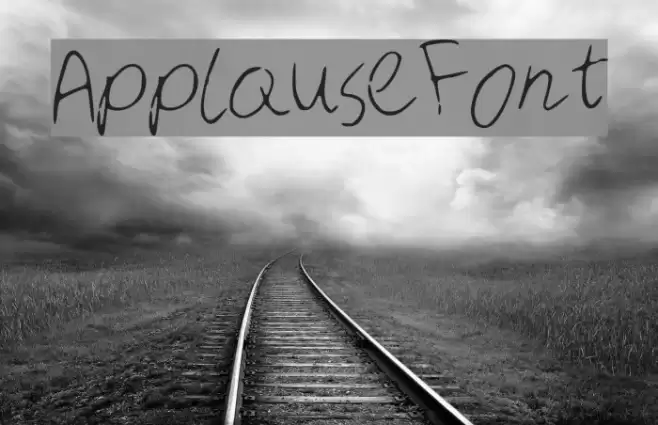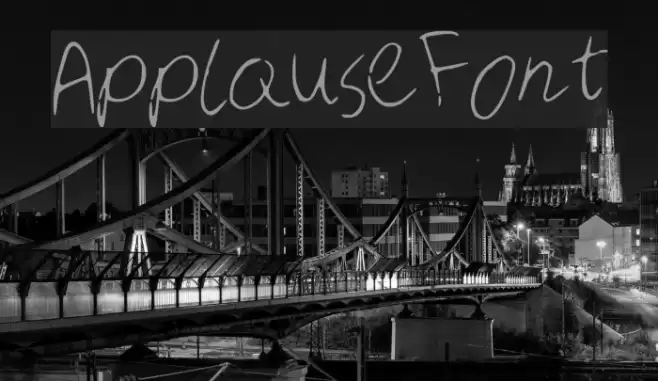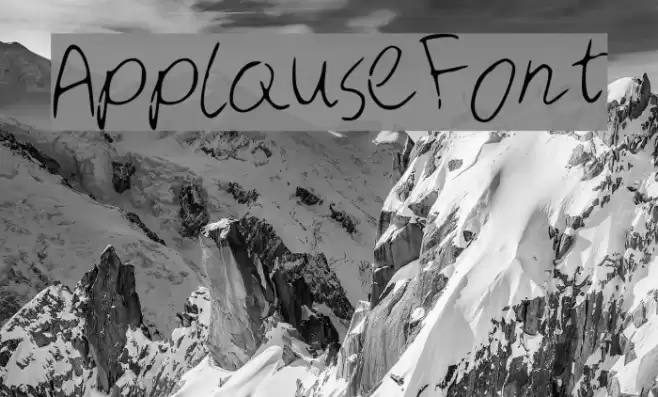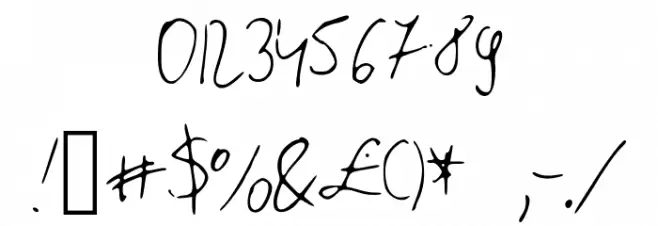
ApplauseFont Font
ApplauseFont Description
This font exudes a lively and spontaneous energy, characterized by its handwritten style that mimics the fluidity and irregularity of natural handwriting. The letters are slightly slanted, giving a sense of motion and informality. The strokes vary in thickness, adding a dynamic and personal touch to the text. The uppercase and lowercase letters maintain a consistent style, with playful loops and curves that enhance its casual appearance. The numerals and special characters follow the same aesthetic, ensuring a cohesive look across all text elements. This font is perfect for projects that require a personal, human touch, such as invitations, greeting cards, or creative branding materials.
A lively, handwritten font with dynamic strokes and a casual, personal feel from Handwritten fonts.
- Proposed Projects: Ideal for invitations, greeting cards, personal branding, and creative projects requiring a human touch.
- Overall Style: Casual
- Use Case: Logos, Invitations, Greeting Cards